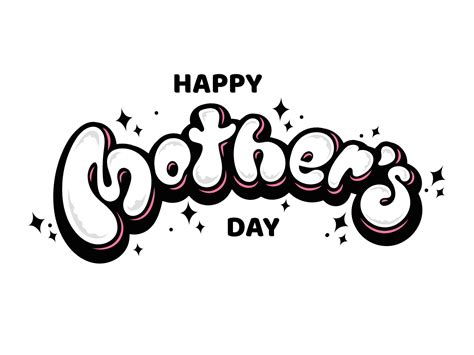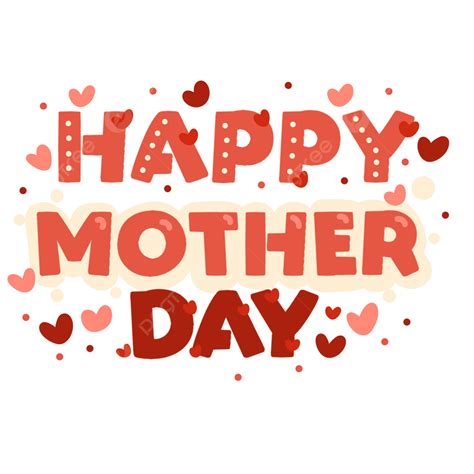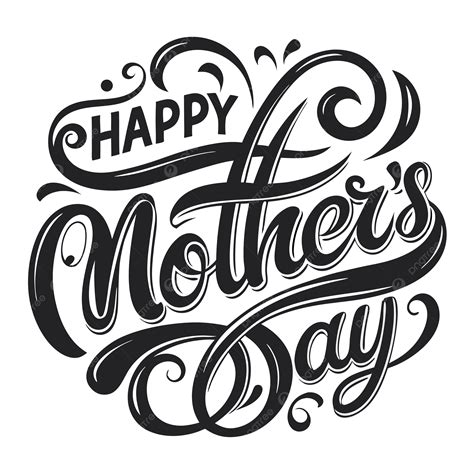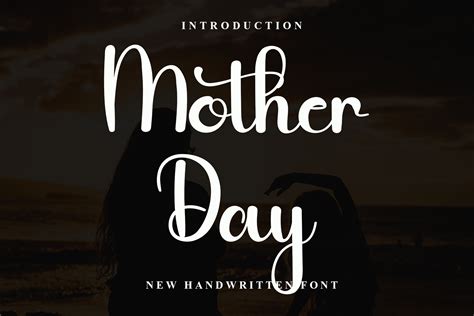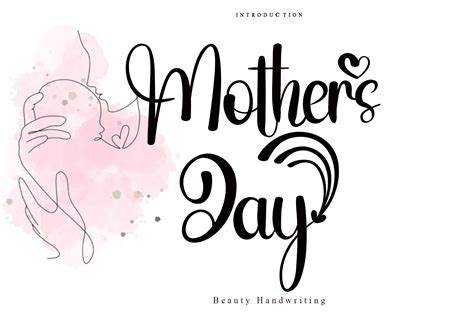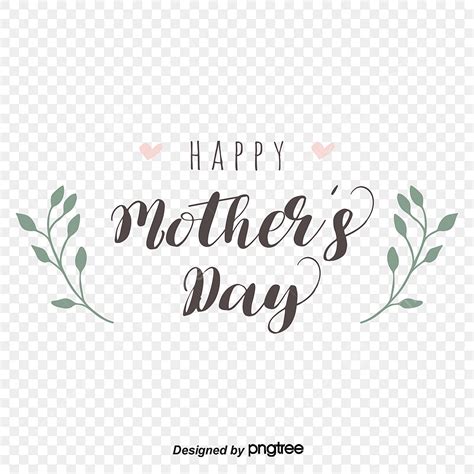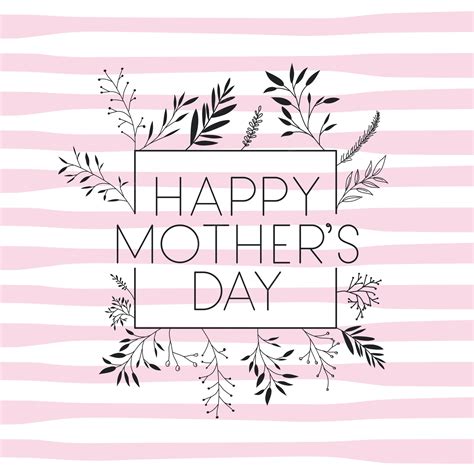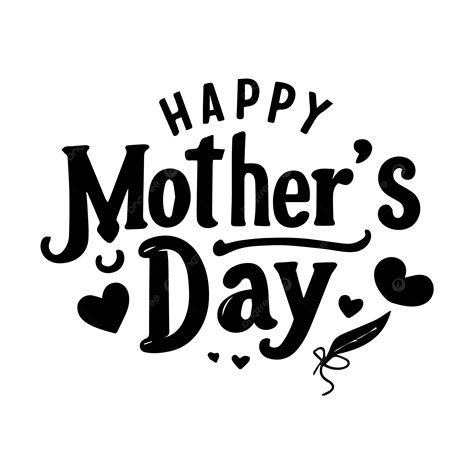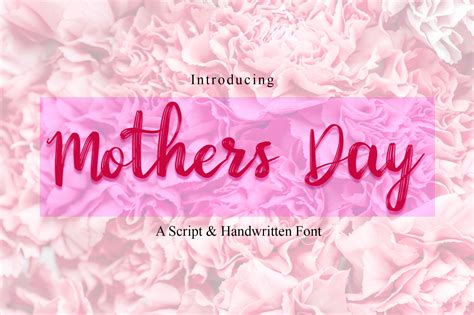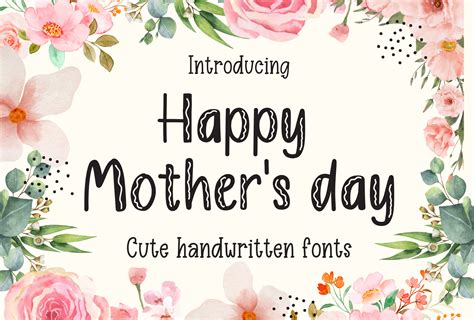
Celebrating Mother's Day is a cherished tradition that honors the love, dedication, and sacrifices of mothers everywhere. One of the most delightful ways to make this day special is through personalized gifts and heartfelt messages. Among the many creative ideas, using a Mothers Day Font can add a unique and personal touch to your greetings and gifts. This post will guide you through the process of selecting, creating, and using a Mothers Day Font to make this Mother's Day unforgettable.
Understanding the Importance of a Mothers Day Font
A Mothers Day Font is more than just a typeface; it’s a way to express your emotions and make your message stand out. The right font can convey warmth, love, and appreciation, making your Mother’s Day greetings more meaningful. Whether you’re creating a digital card, a printed invitation, or a handwritten note, choosing the perfect Mothers Day Font can elevate your message to a whole new level.
Choosing the Right Mothers Day Font
Selecting the right Mothers Day Font involves considering the tone and style you want to convey. Here are some tips to help you choose the perfect font:
- Elegant and Classic: For a timeless and sophisticated look, opt for serif fonts like Times New Roman, Garamond, or Georgia. These fonts are perfect for formal invitations or heartfelt letters.
- Playful and Fun: If you want to add a touch of whimsy, consider using script fonts like Brush Script, Pacifico, or Lobster. These fonts are great for digital cards or social media posts.
- Modern and Minimalist: For a clean and contemporary look, sans-serif fonts like Arial, Helvetica, or Montserrat are ideal. These fonts work well for both digital and printed materials.
- Handwritten and Personal: To give a personal touch, use handwritten fonts like Great Vibes, Allura, or Sacramento. These fonts are perfect for adding a personal note to your gifts or cards.
Creating Your Own Mothers Day Font
If you want to make your Mother’s Day message truly unique, consider creating your own Mothers Day Font. This can be a fun and creative process that allows you to express your personality and emotions. Here are the steps to create your own font:
- Choose Your Tools: You can use various software tools to create your font, such as Adobe Illustrator, FontForge, or Glyphs. These tools offer a range of features to help you design your font from scratch.
- Sketch Your Letters: Start by sketching out your letters on paper. This will help you visualize the shape and style of your font. Pay attention to the details, such as the curves and lines, to ensure consistency.
- Digitize Your Design: Once you have your sketches, use your chosen software to digitize your design. This involves tracing your letters and refining the shapes to create a clean and polished look.
- Define Your Font Characteristics: Next, define the characteristics of your font, such as the x-height, ascender, and descender. These elements will determine the overall appearance and readability of your font.
- Test Your Font: Before finalizing your font, test it out by typing a sample text. This will help you identify any issues with spacing, kerning, or legibility. Make adjustments as needed to ensure your font looks great in use.
- Export Your Font: Once you’re satisfied with your design, export your font in a format that can be used in various applications, such as TTF or OTF. This will allow you to use your custom Mothers Day Font in your digital and printed materials.
📝 Note: Creating a font from scratch can be a complex process, especially if you’re new to font design. Consider starting with simpler designs and gradually adding more details as you become more comfortable with the tools and techniques.
Using a Mothers Day Font in Your Projects
Once you have your Mothers Day Font ready, it’s time to use it in your Mother’s Day projects. Here are some ideas to help you make the most of your custom font:
- Digital Cards: Create beautiful digital cards using your custom Mothers Day Font. You can use software like Canva, Adobe Spark, or PicMonkey to design your card. Add personal photos, quotes, or messages to make it even more special.
- Printed Invitations: Design elegant printed invitations for Mother’s Day events using your custom font. You can use software like Microsoft Word, Adobe InDesign, or Scrivener to create your invitations. Choose high-quality paper and printing techniques to make your invitations stand out.
- Handwritten Notes: Write heartfelt notes to your mother using your custom Mothers Day Font. You can use a stylus and a tablet to write your notes digitally, or print them out and add a personal touch with a handwritten signature.
- Social Media Posts: Share your love and appreciation on social media using your custom font. Create eye-catching graphics with your Mothers Day Font and share them on platforms like Instagram, Facebook, or Twitter. Use relevant hashtags to reach a wider audience.